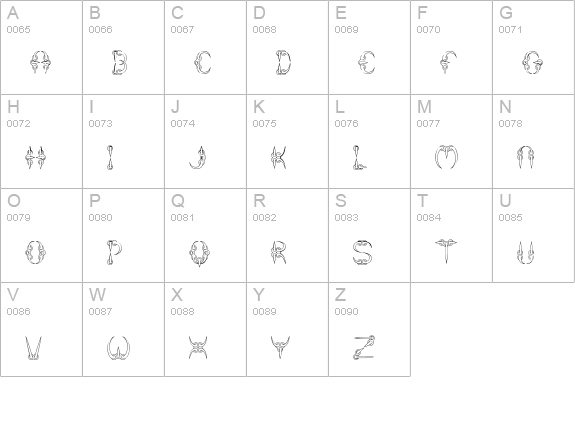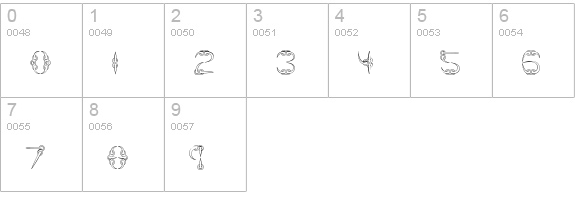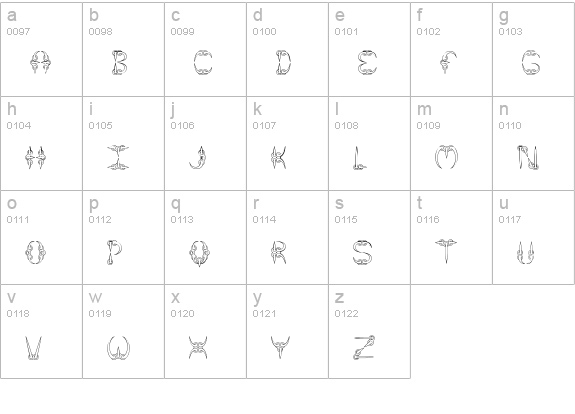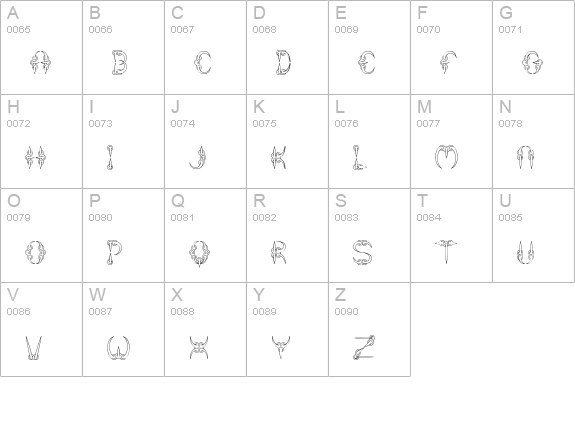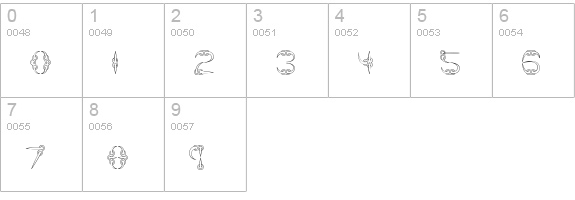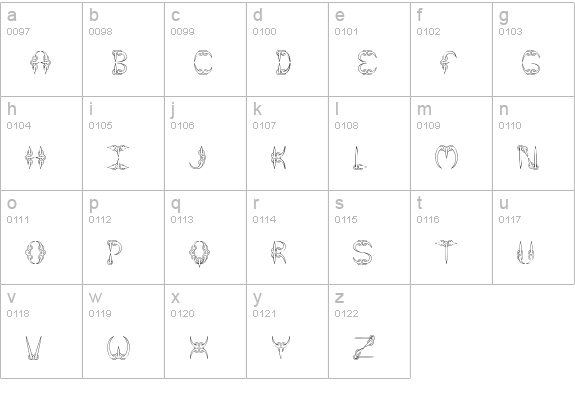
CLAW 2 BRK Font Details
CLAW 2 BRK font is a bold and dynamic typeface that exudes a sense of strength and power. Its sharp edges and angular design give it a fierce and commanding appearance, making it perfect for projects that require a bold statement. The font's unique style sets it apart from traditional fonts, adding a touch of modernity and edginess to any design. What makes CLAW 2 BRK font even more appealing is that it is available for free download at FontsMarket.com. This means that you can easily access this striking font and use it in your designs without any cost. Whether you need a font that conveys strength, confidence, or daring, CLAW 2 BRK is a versatile choice that will make your designs stand out. Download it today and unleash its powerful impact on your projects.